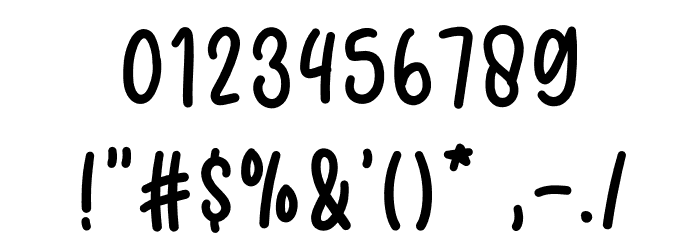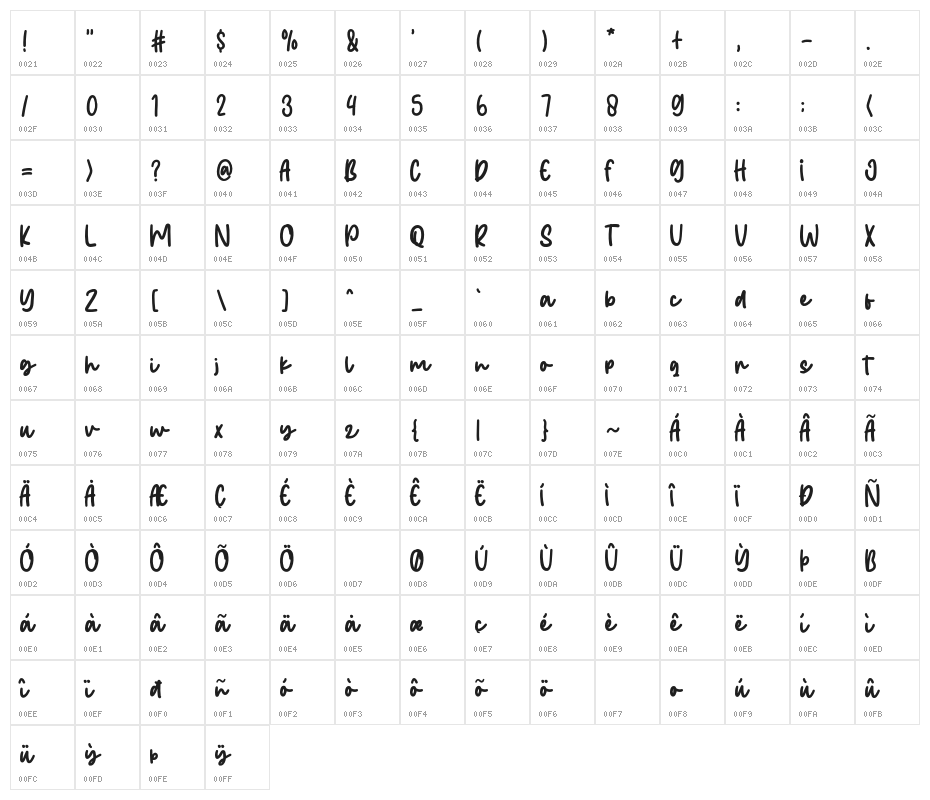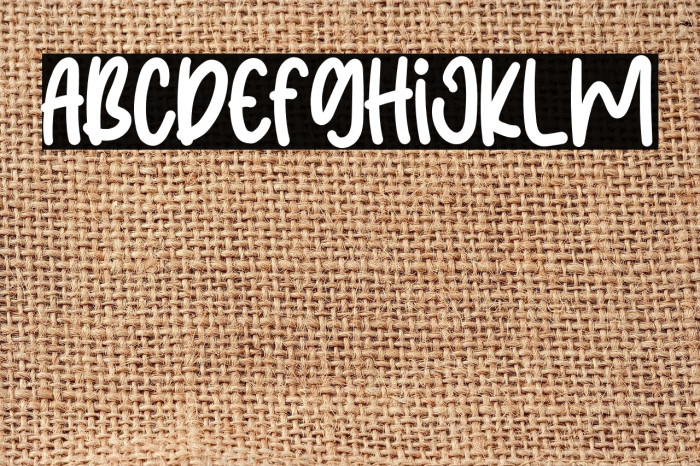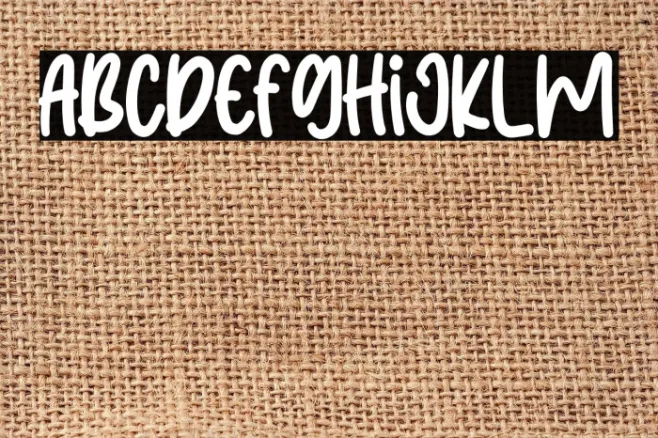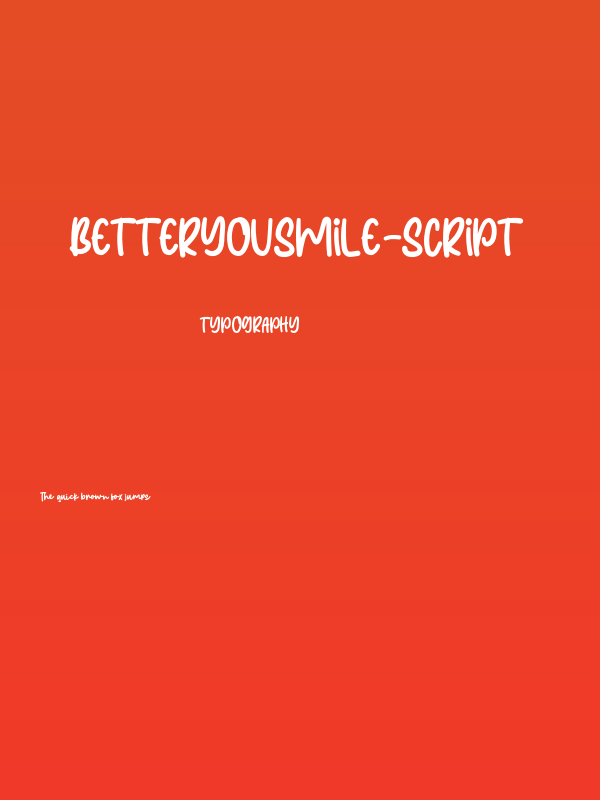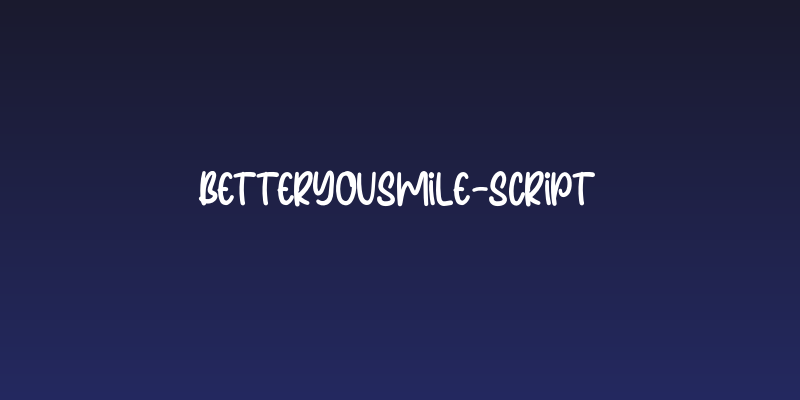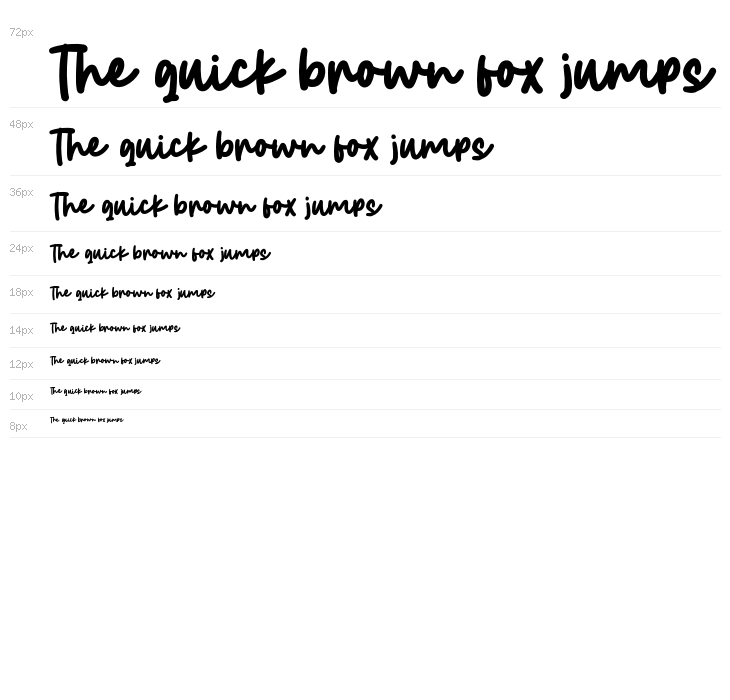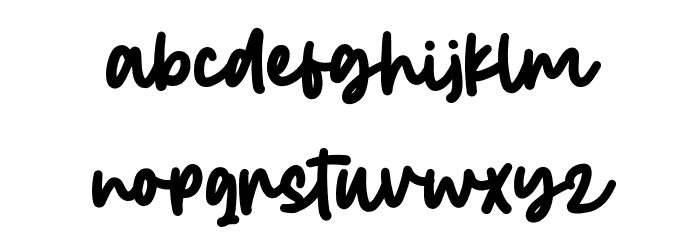
BetterYouSmile-Script Font
BetterYouSmile-Script Description
This font exudes a playful and energetic vibe with its bold, handwritten style. The letters are crafted with a smooth, flowing script that mimics natural handwriting, giving it a personal and informal touch. Each character is distinct yet harmoniously connected, creating a cohesive look. The uppercase letters are slightly larger and more pronounced, while the lowercase letters maintain a consistent flow. Numbers and special characters are designed to match the font's overall style, ensuring versatility in various applications. The strokes are thick and consistent, providing a strong visual impact.
| Overall Style | Playful, Energetic |
| Proposed Projects | Ideal for greeting cards, invitations, social media graphics, and branding projects that require a personal touch. |